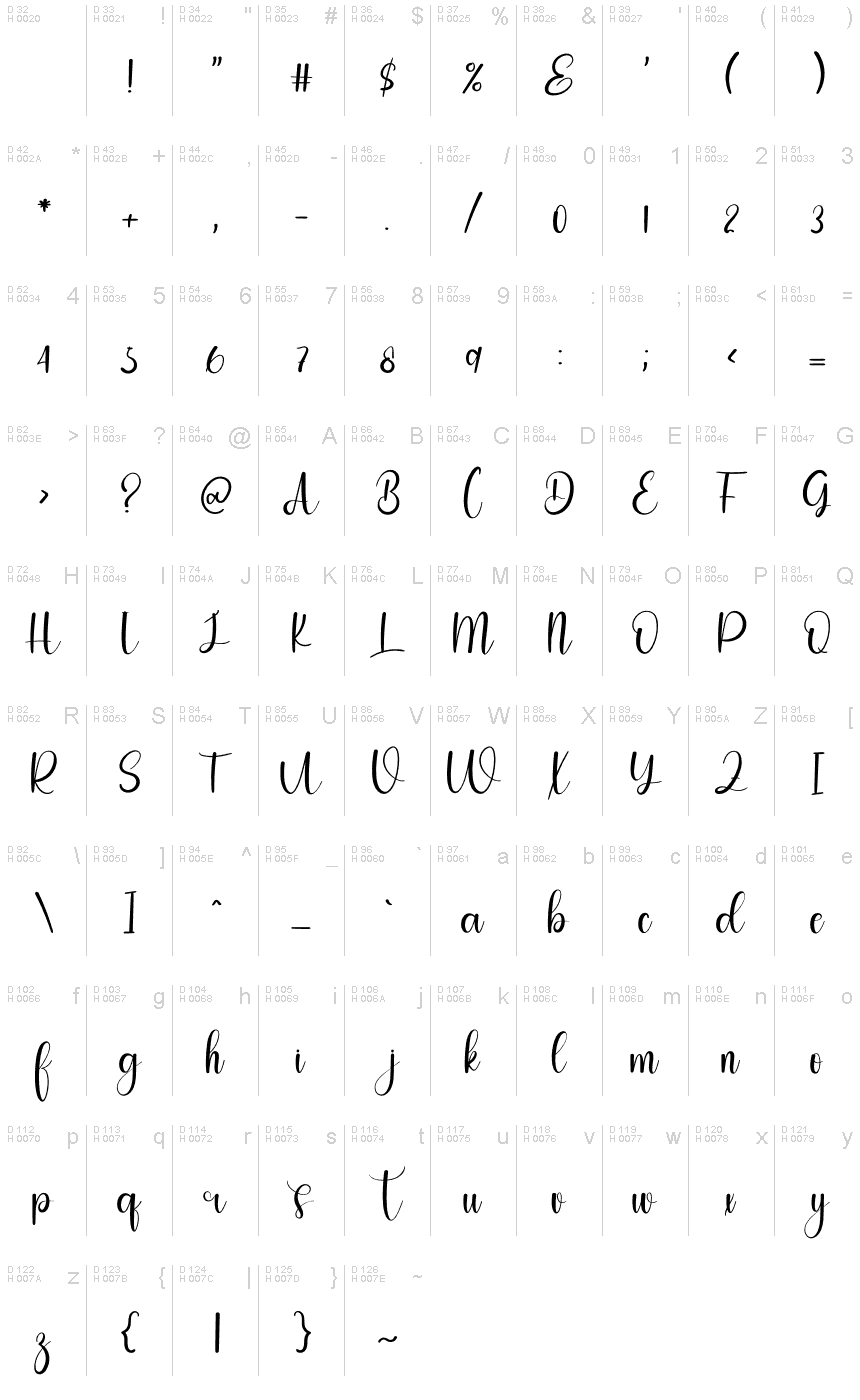
Christmas
Christmas, designed by PiPi Creative, is a semi-light calligraphy font that embodies the spirit of the holiday season with its fluid, elegant strokes and a touch of whimsy. The flowing letters are reminiscent of ribbons on a gift, making this font an excellent choice for festive projects that require a personal, handcrafted touch.
The aesthetic appeal of Christmas lies in its balance between classic calligraphy and modern design sensibilities. Each character boasts gentle curves and fine lines that suggest sophistication while retaining an air of playful charm. This duality ensures that the font is versatile enough to adorn holiday cards, event invitations, and seasonal marketing materials with equal grace.
With its semi-light weight, Christmas maintains readability without sacrificing style. It's an inspired choice for creatives looking to capture the warmth and joy of yuletide cheer in their designs. Whether you're crafting elegant headers or composing heartfelt messages, Christmas is poised to add a sprinkle of magic to your typography palette.